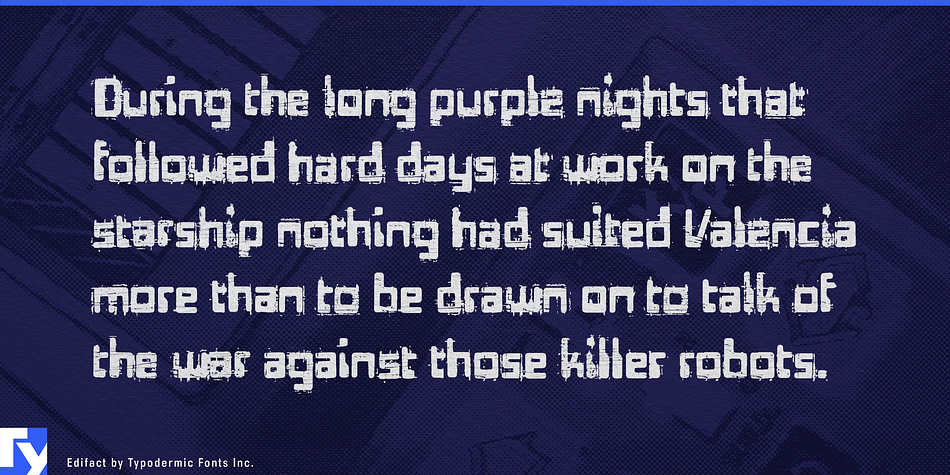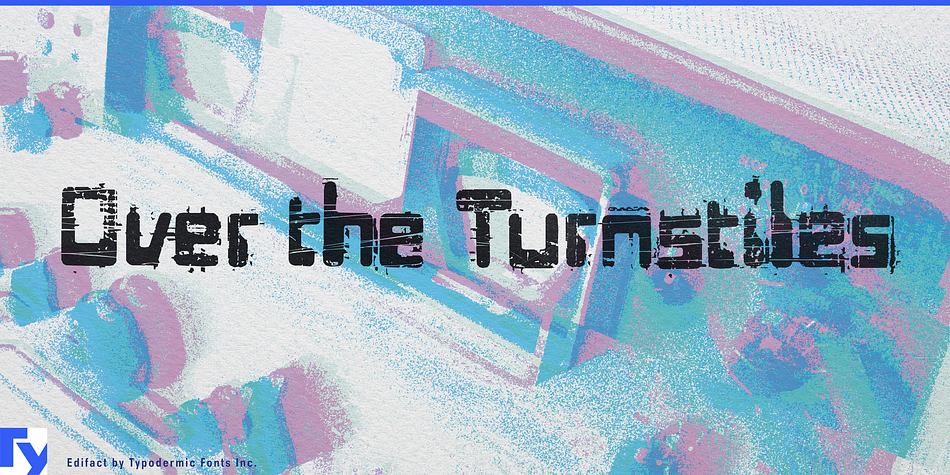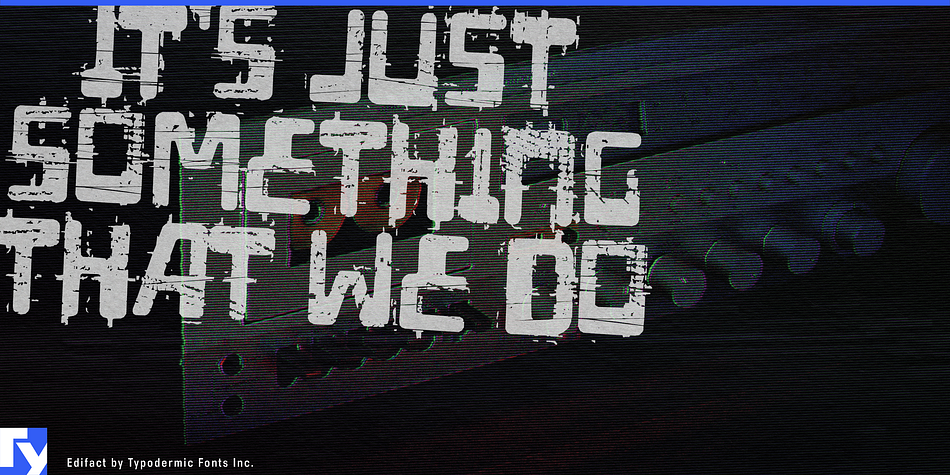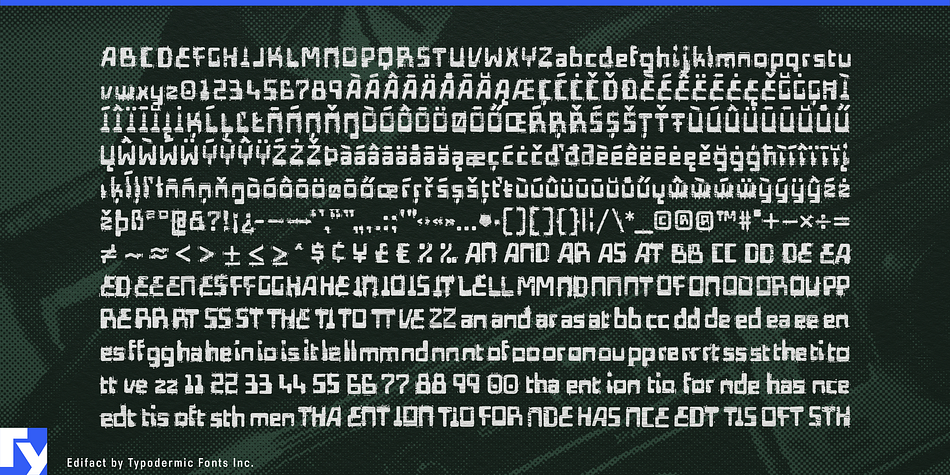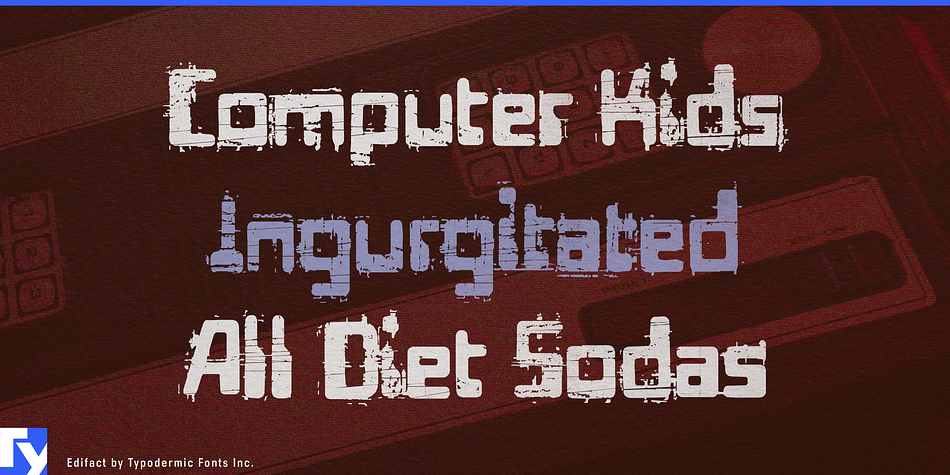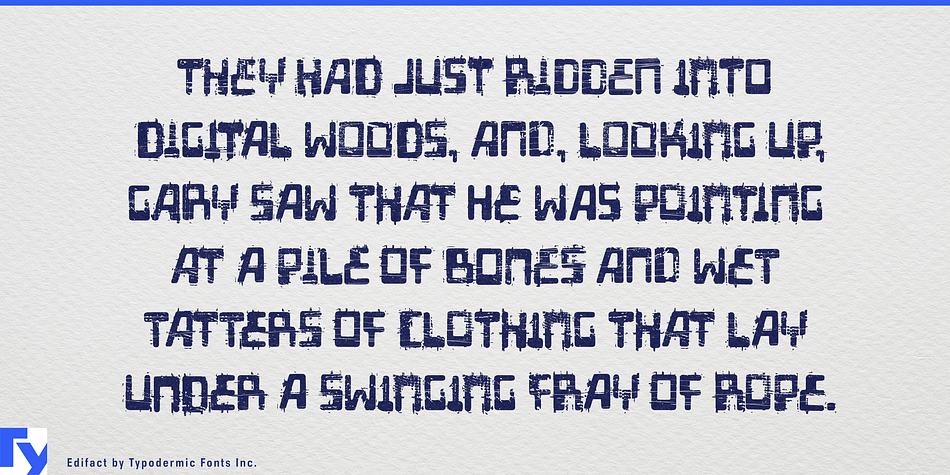
Edifact is a grunge font published by Typodermic Fonts Inc.
Edifact is a severly damaged 1960s style techno font. In OpenType savvy applications, letter pair autoligs help break up the monotony of obviously repeating letters.